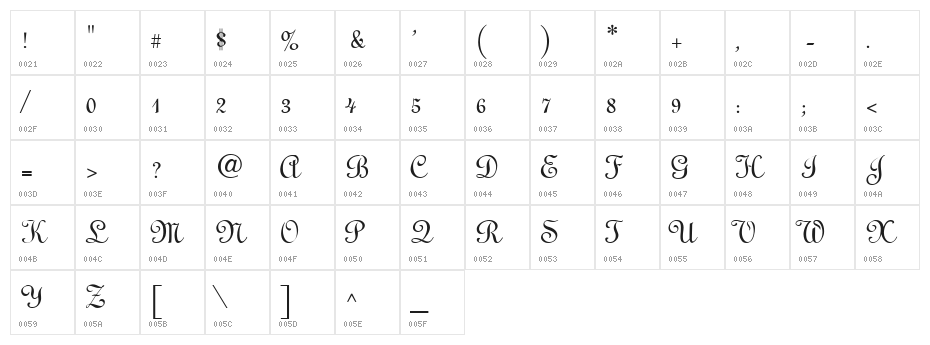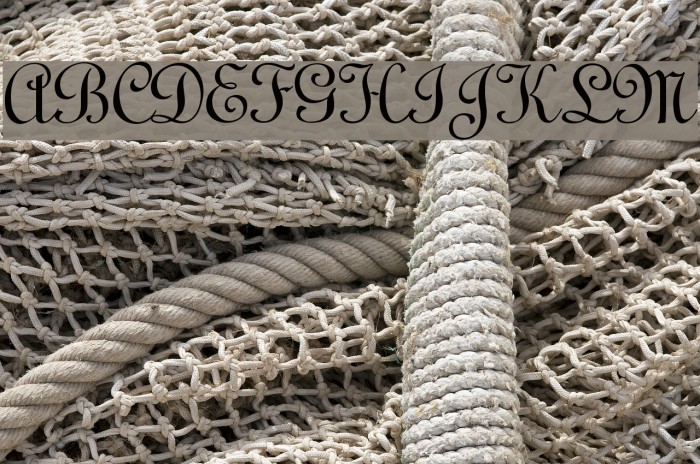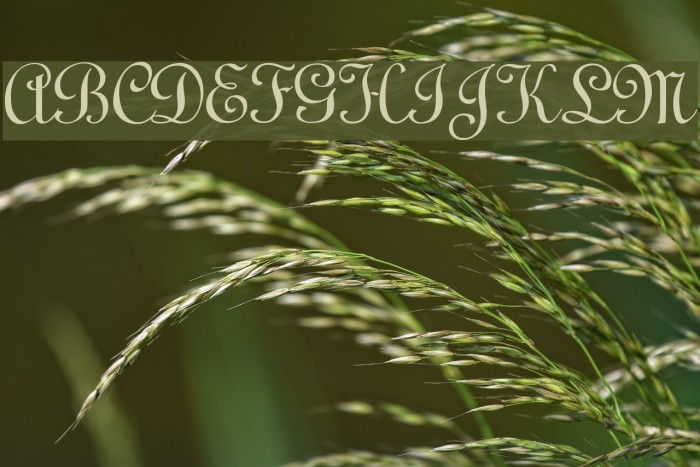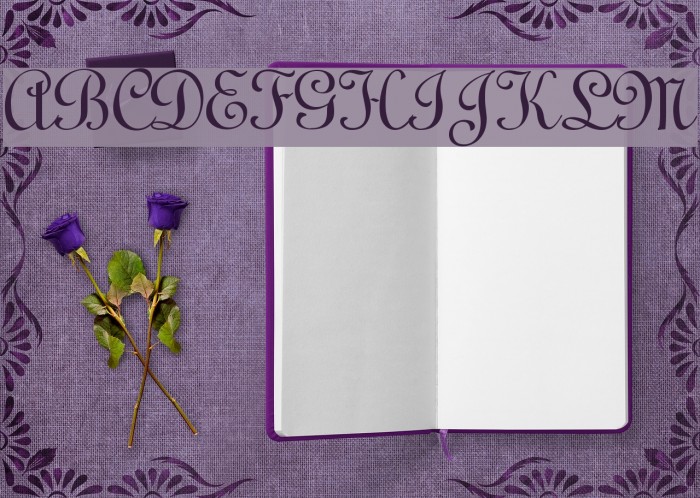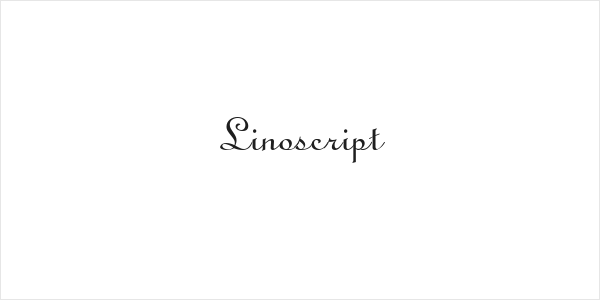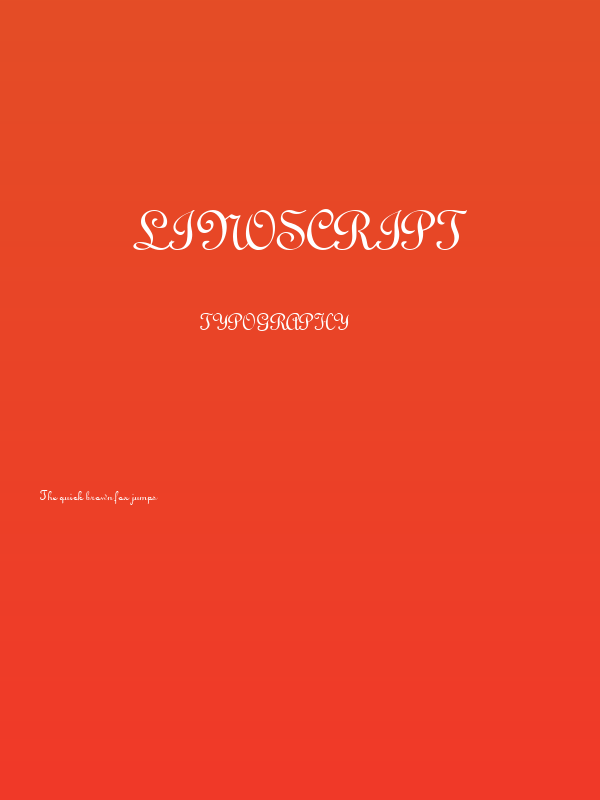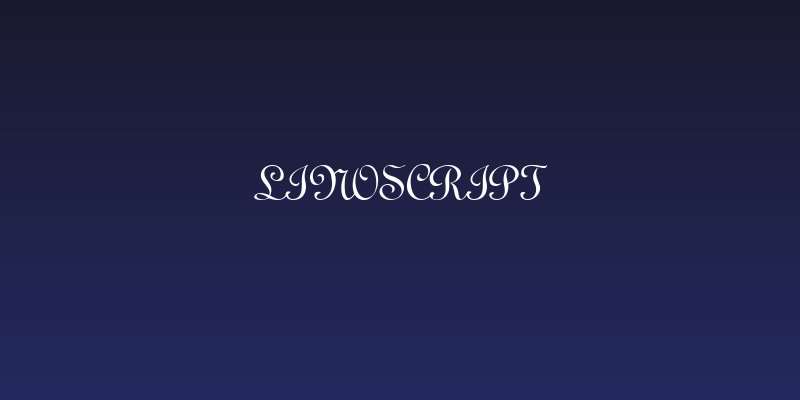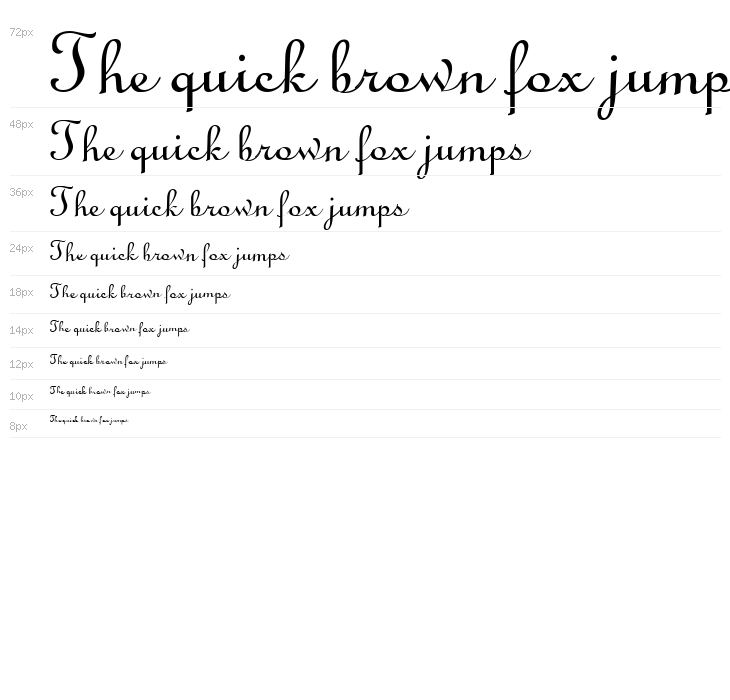
Linoscript Font
Linoscript Description
This elegant script font features a flowing, cursive style that mimics traditional handwriting with a modern twist. The uppercase letters are ornate, with intricate loops and swirls, while the lowercase letters maintain a more subdued, yet still graceful appearance. The numerals are consistent with the overall style, offering a cohesive look. The special characters are designed to complement the alphabet, adding versatility to the font. This font is perfect for projects that require a touch of sophistication and elegance.
| Use Case | Headlines, Invitations, Decorative text |
| Proposed Projects | Ideal for wedding invitations, greeting cards, elegant branding, and decorative headings. |